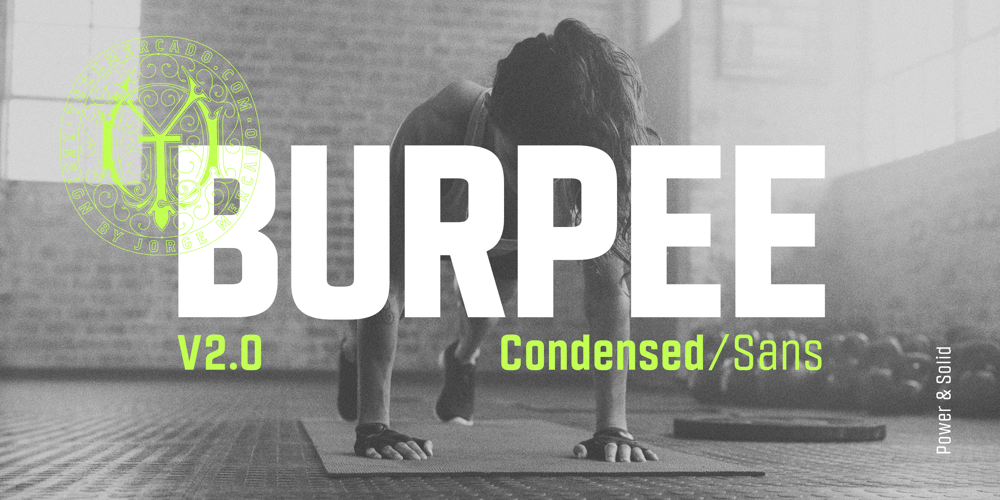
Burpee Font Family was designed by Jorge Mercado and published by Yock Mercado. Burpee contains 8 styles and family package options. Burpee is a basic condensed sans typeface, designed for headlines that needs be powerful and punchy, Burpee is inspired in sports, looking for a visual impact that get the attention.